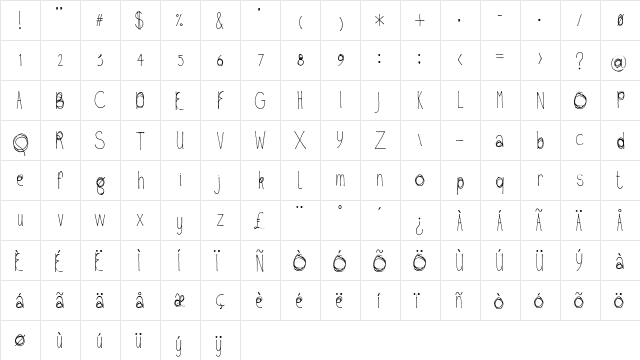
Fil Sans Semi-condensed Thin
| Foundry | Piet Brantjes |
| Designer | Piet Brantjes |
Design Context for Fil Sans Typeface
Fil Sans is a composed and adaptable typeface that performs quietly and consistently across a wide range of design contexts. The delicate stroke weight brings airiness and refinement to layouts. Its narrow stance lets it pack a punch even in space-constrained designs.